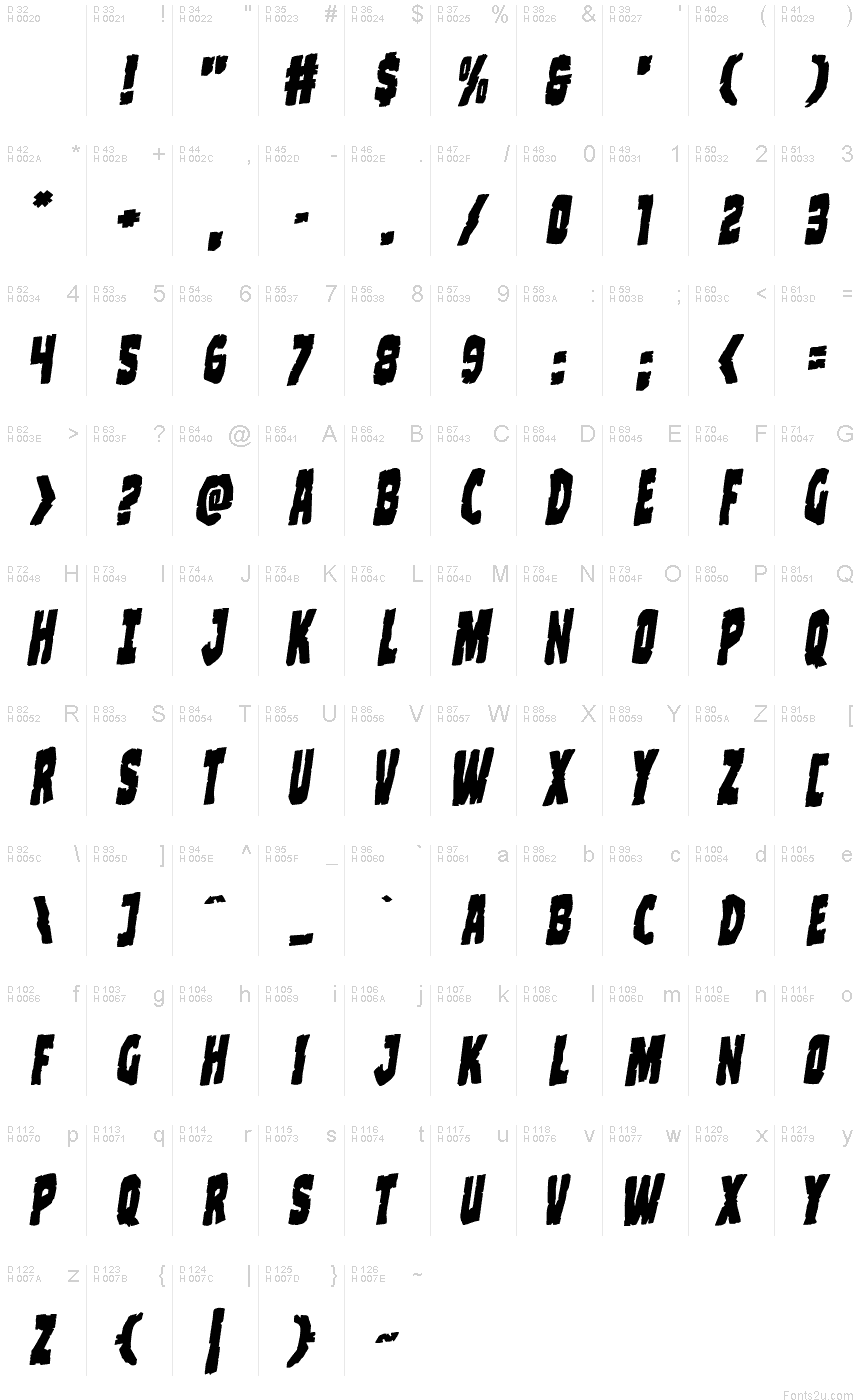
Clubber Lang Rotalic, designed in 2013 by Iconian Fonts, is a free distorted cartoon display font with a hard, confrontational stance. Its tall, heavy letters lean forward and press tightly together. Sharp bites, crooked joins, and uneven edges give the silhouette a cut-and-pasted roughness.
The ripped-paper contours can become part of the artwork on fight posters and action-game graphics, echoing impact marks or damaged surfaces. That same aggressive shape suits band merchandise and extreme-sports branding, especially when the lettering needs to resemble a hand-cut emblem rather than ordinary type. Its clearest audience is designers working in loud entertainment, combat-sport, and streetwear contexts.